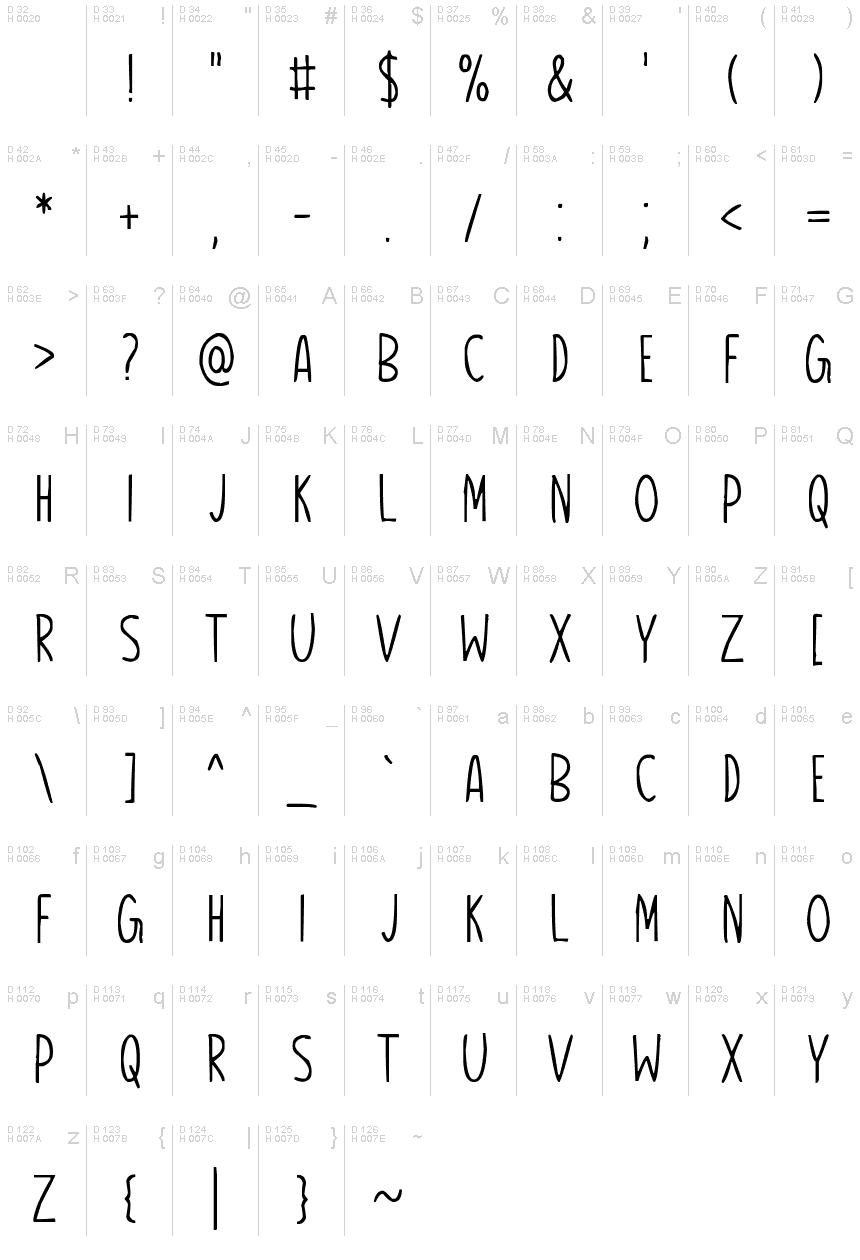
Baby Elephant
Meet Baby Elephant, the semi-light, condensed font designed by Md Shohail Bhuian. With its unique handwriting style and block letters, this font is perfect for projects that require a playful and whimsical touch. Use it for children's book covers, greeting cards, or even social media graphics to add a touch of fun and authenticity to your designs. The condensed width also makes it ideal for fitting more text into smaller spaces without sacrificing readability. Bring your projects to life with the charming and versatile Baby Elephant font!